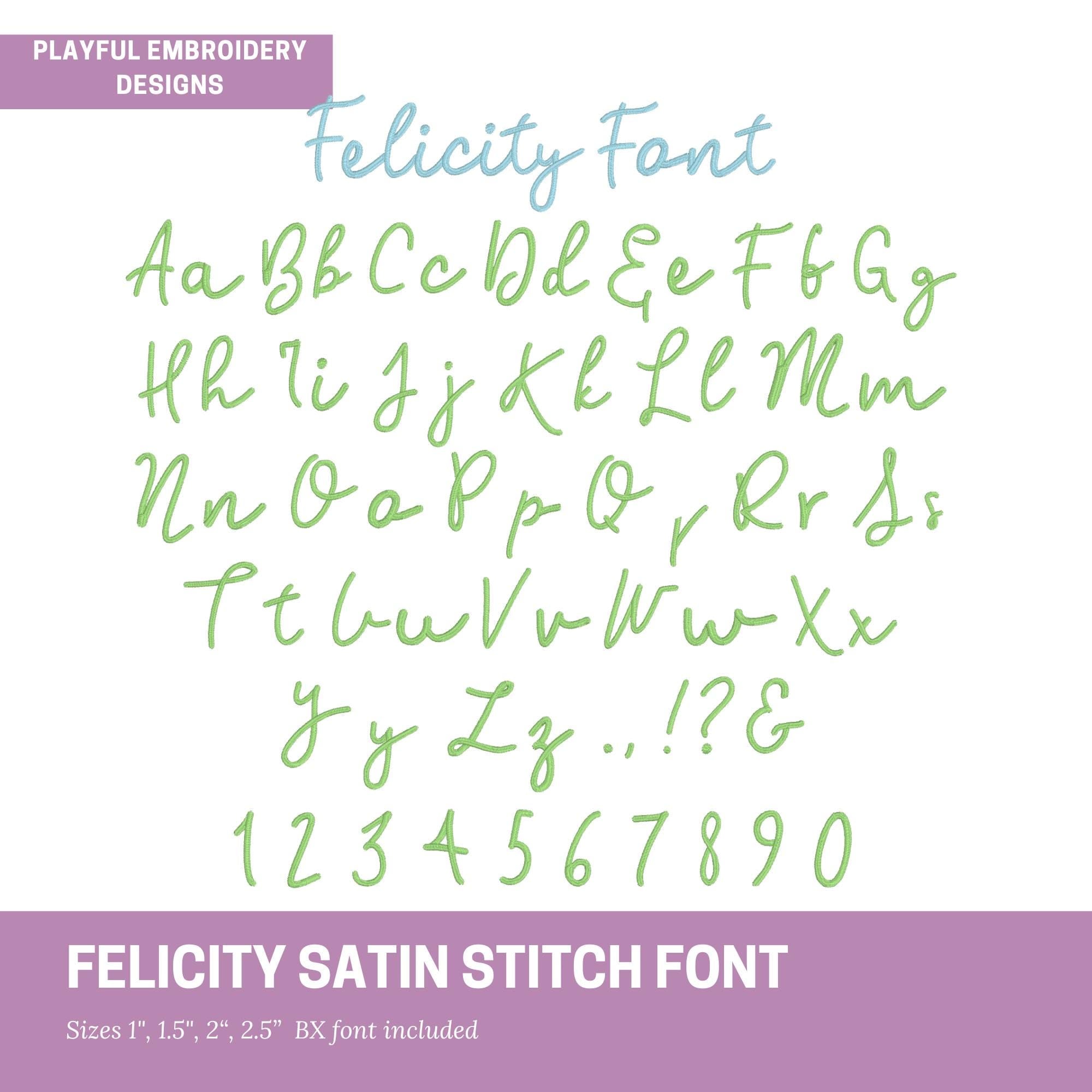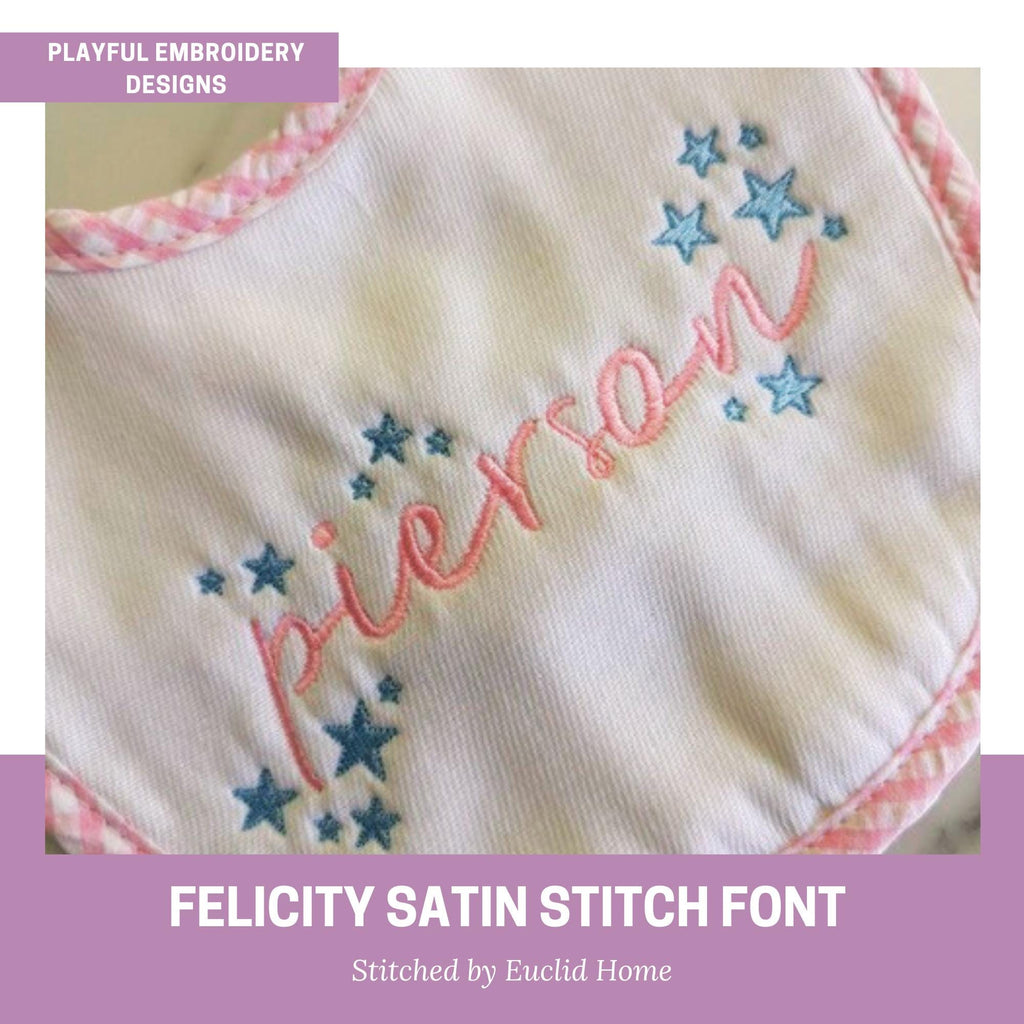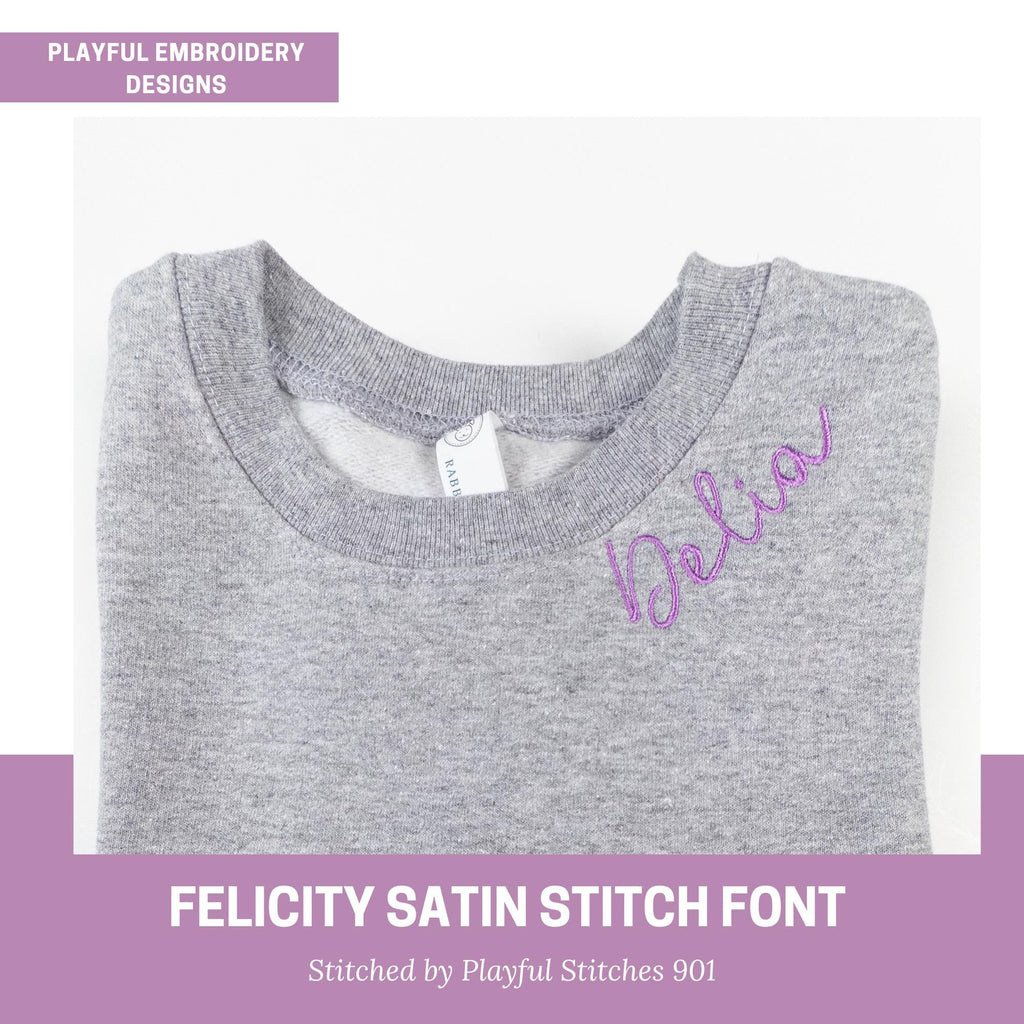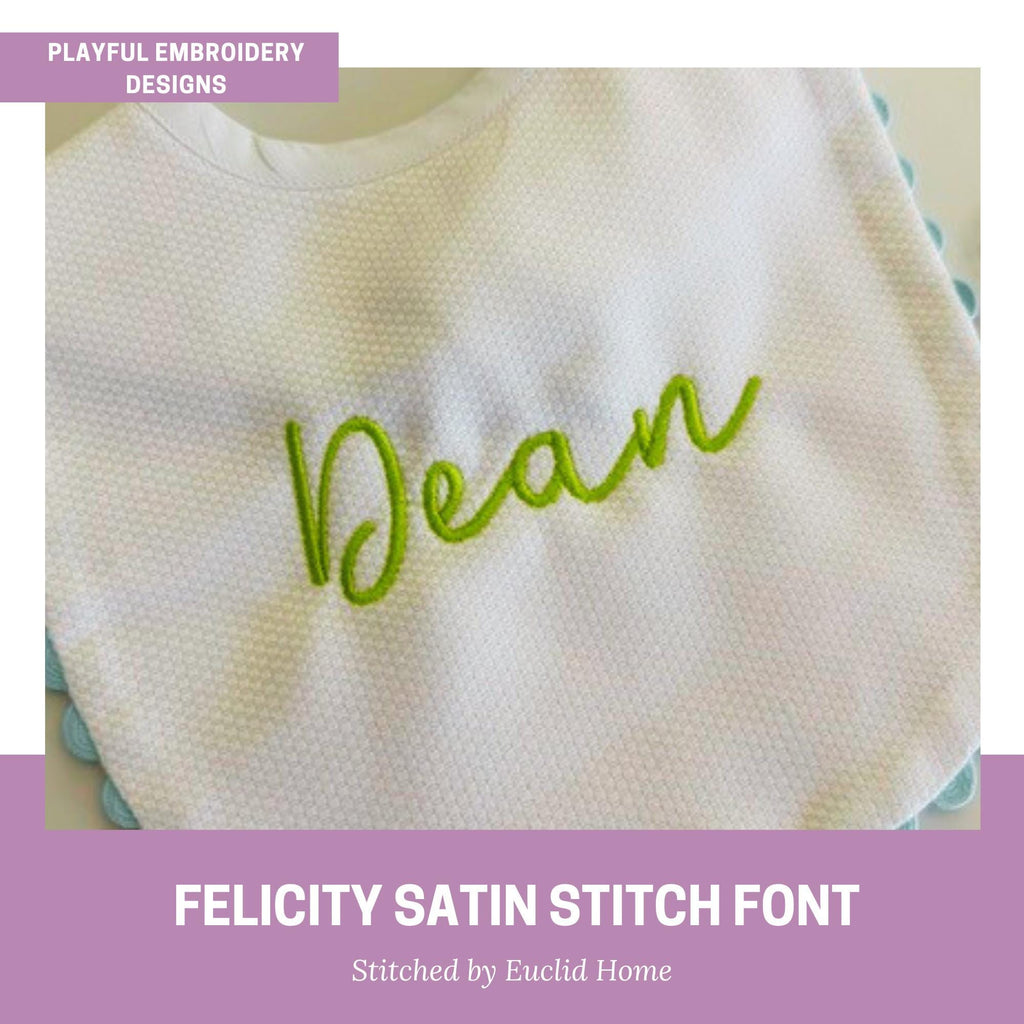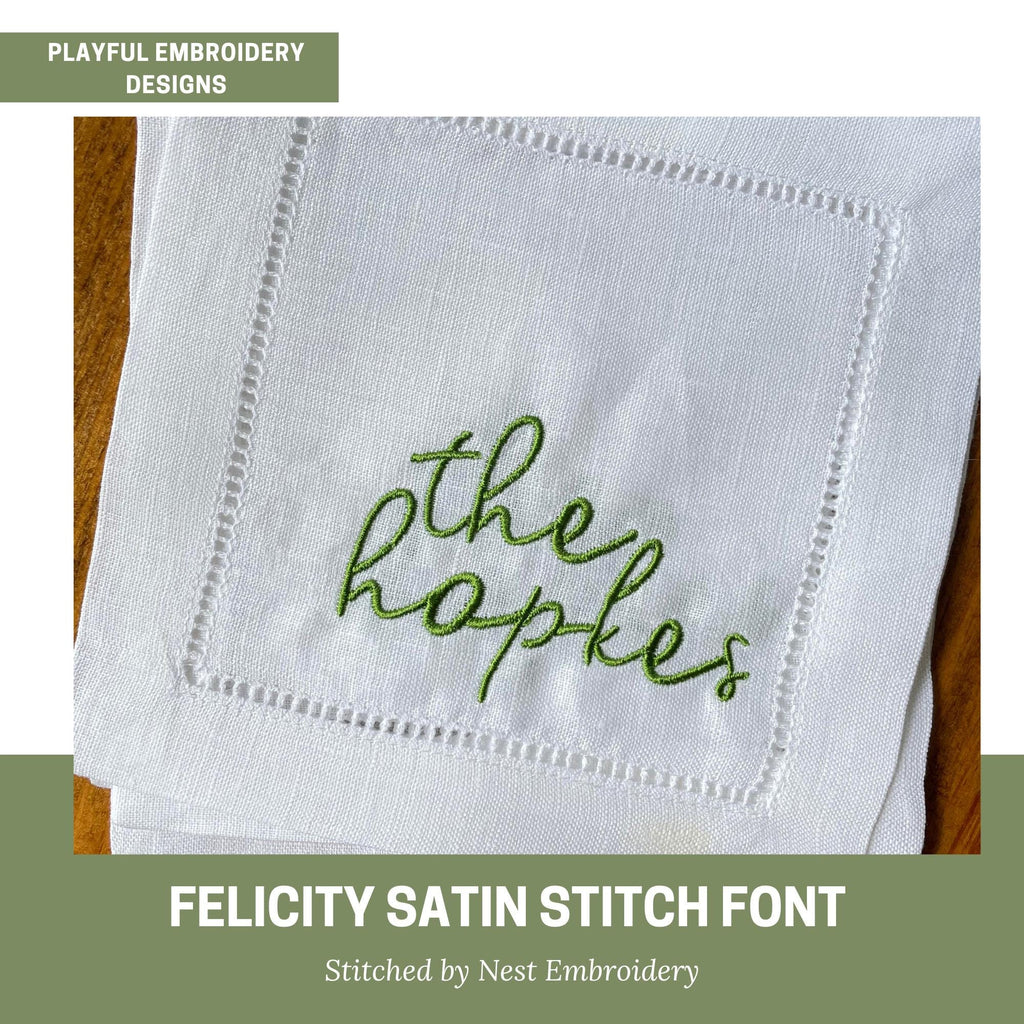
Felicity Satin Stitch Embroidery Font, Handwriting Satin Stitch Machine Embroidery Font, Playful Embroidery font, bx included
Introducing the Felicity satin stitch handwriting machine embroidery font. This fun and playful font is perfect for children's and baby items or anything you want a handwritten look.